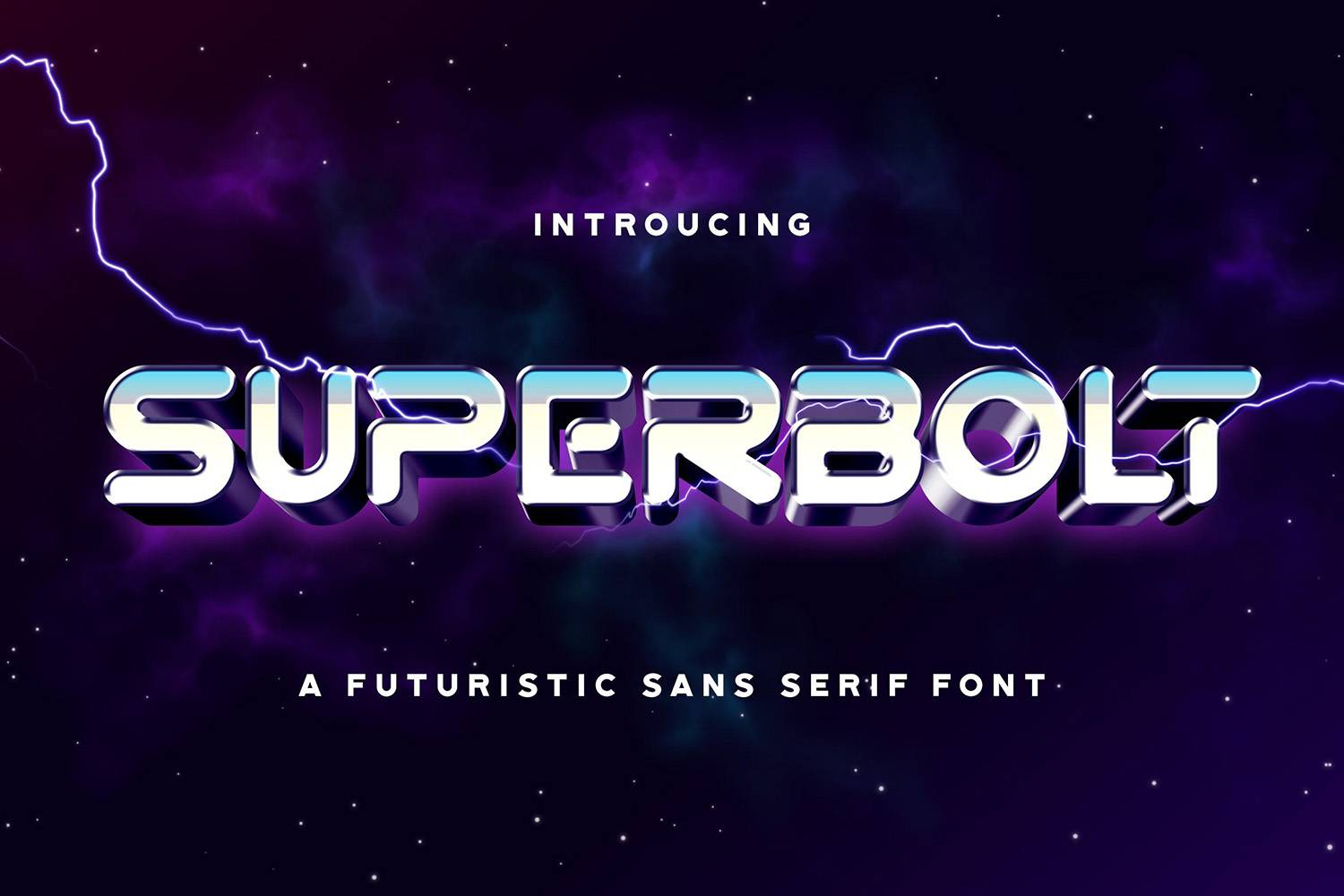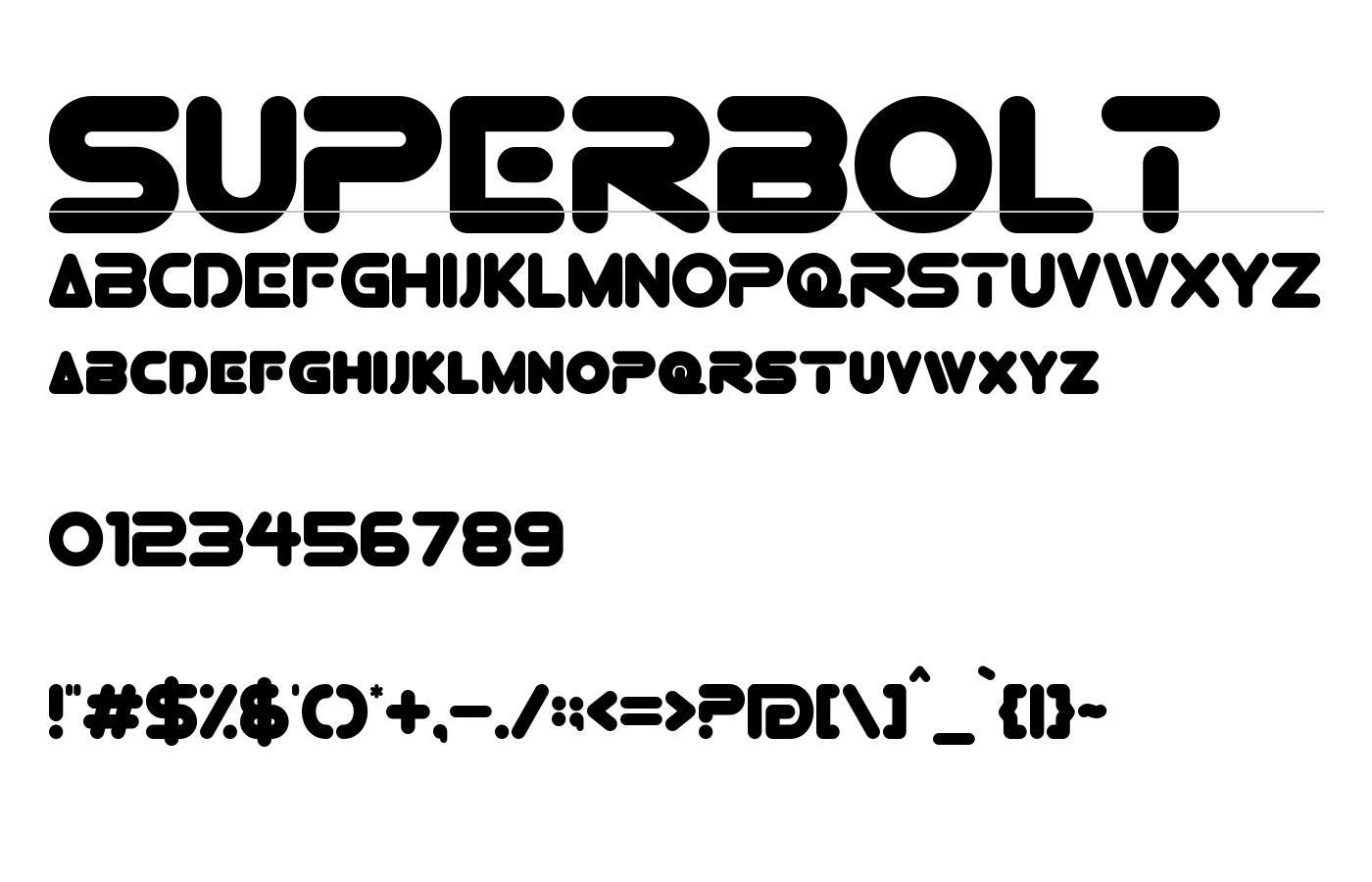
Superbolt is a bold, geometric sans serif font with a futuristic and playful character. Its thick, rounded strokes and unique letter shapes create a strong visual impact, making it ideal for logos, headlines, and modern branding that aims to stand out with a fun yet confident vibe. This font works best in designs that require a bold statement and an approachable, contemporary feel.
Superbolt Font
About Superbolt Font